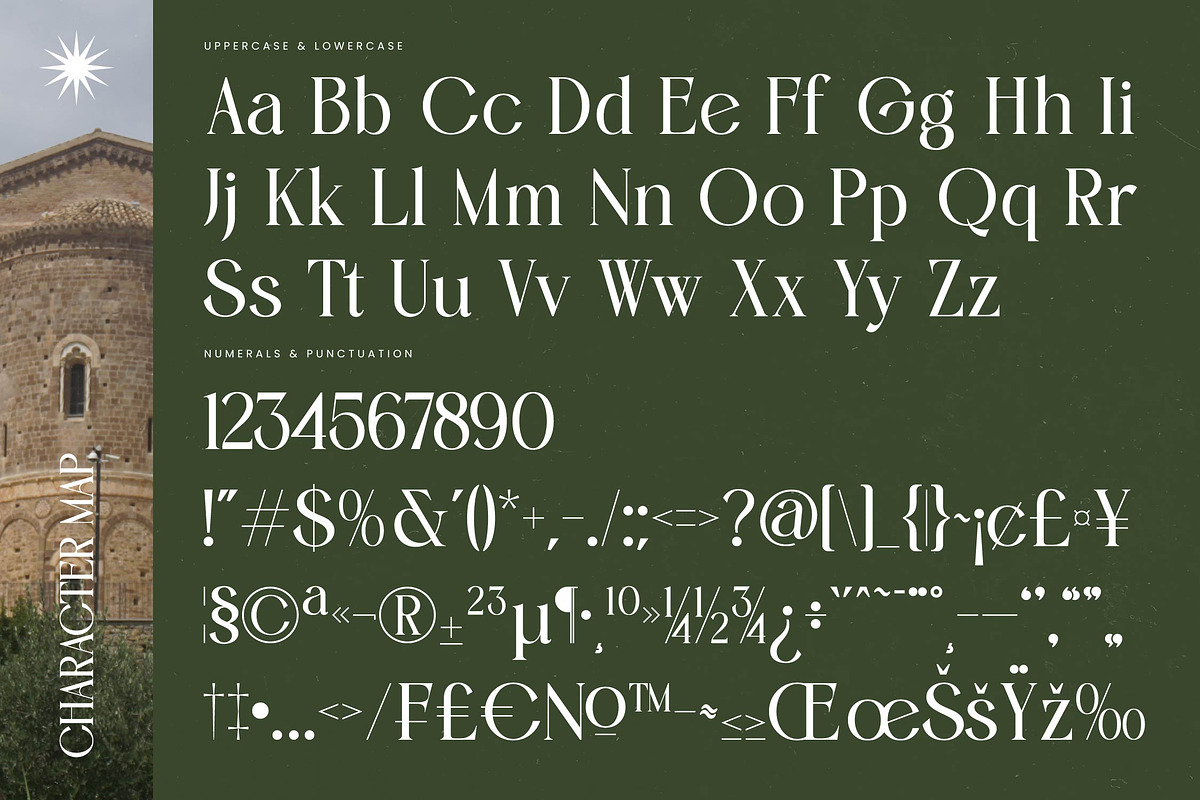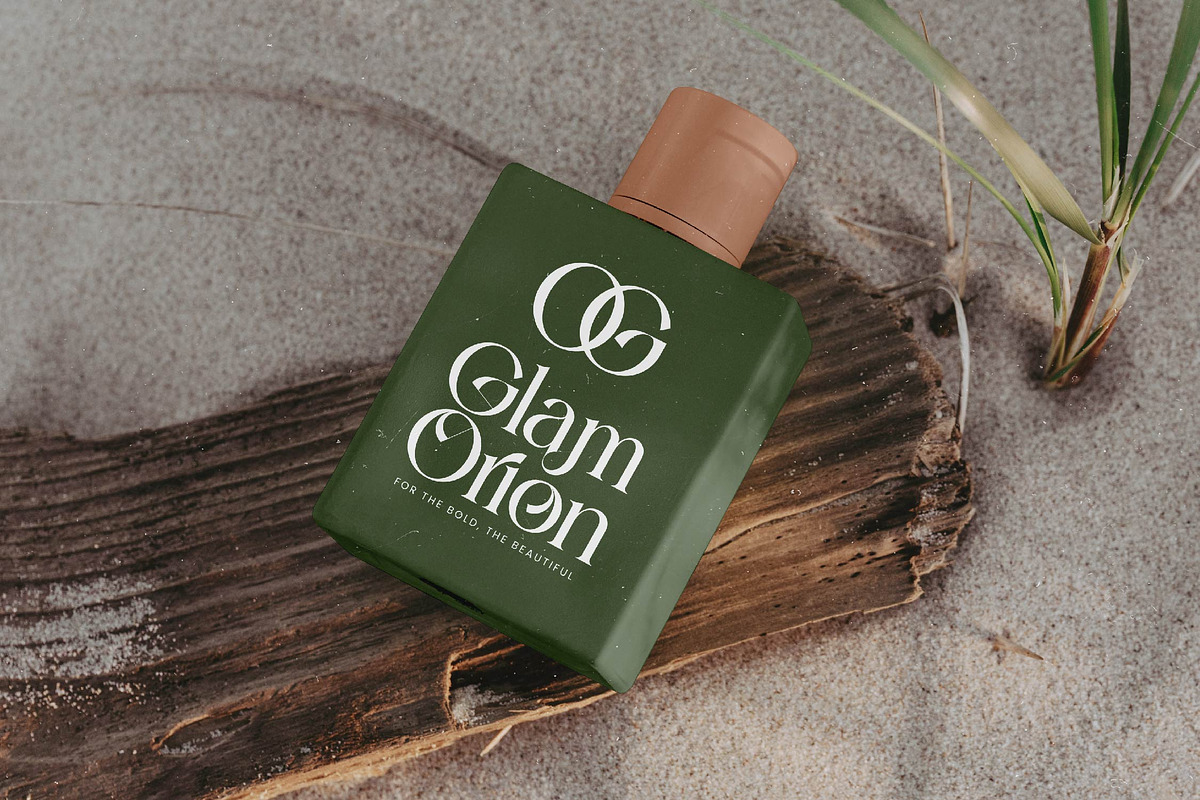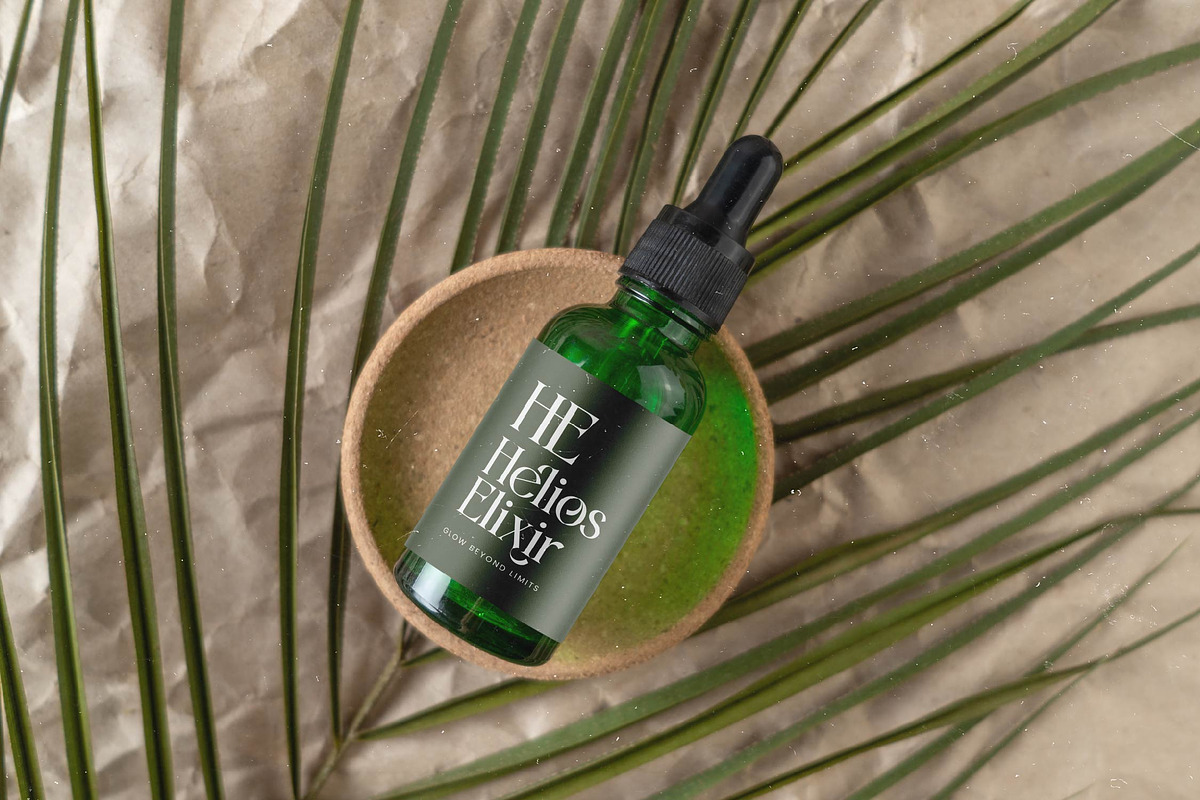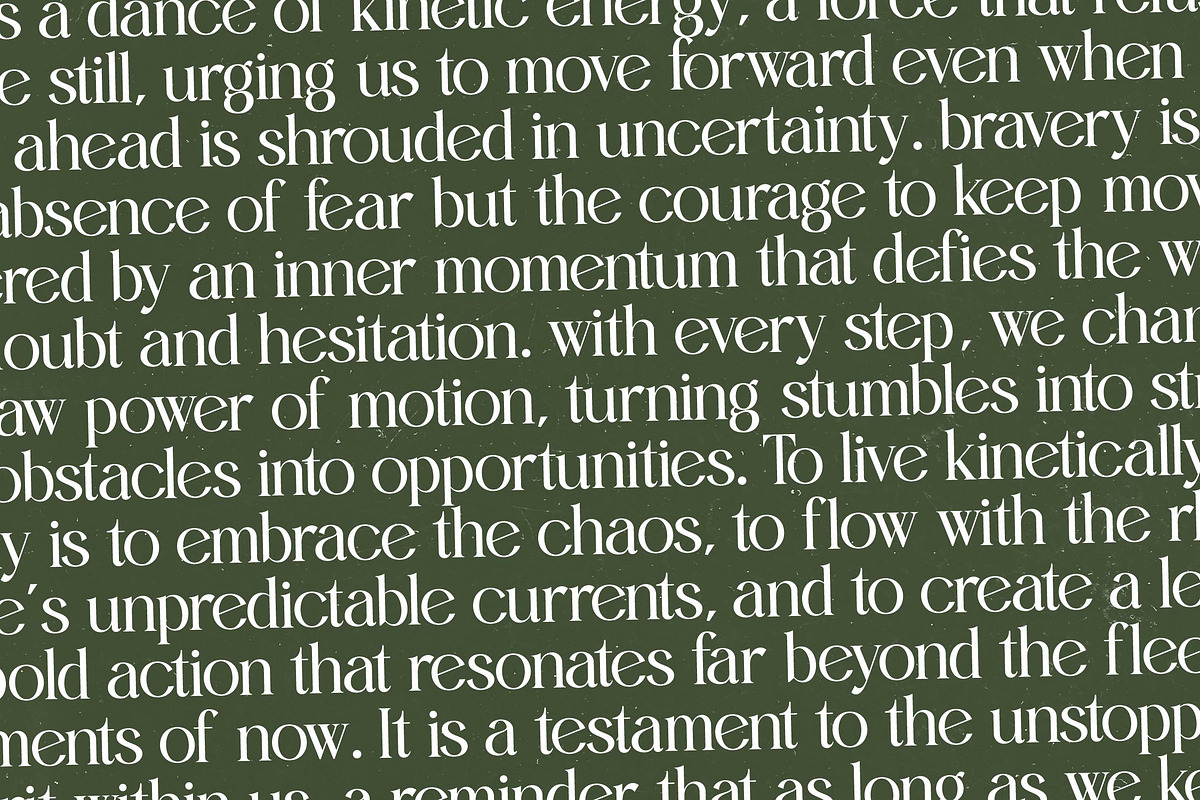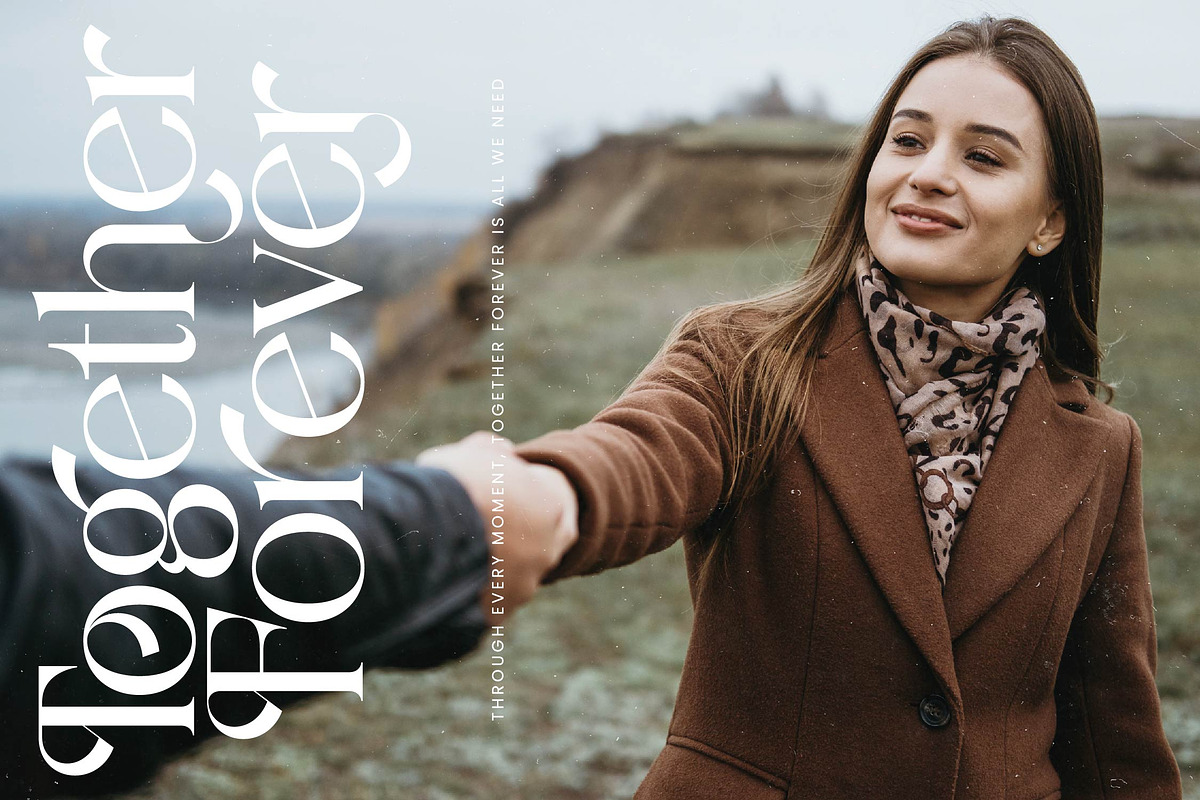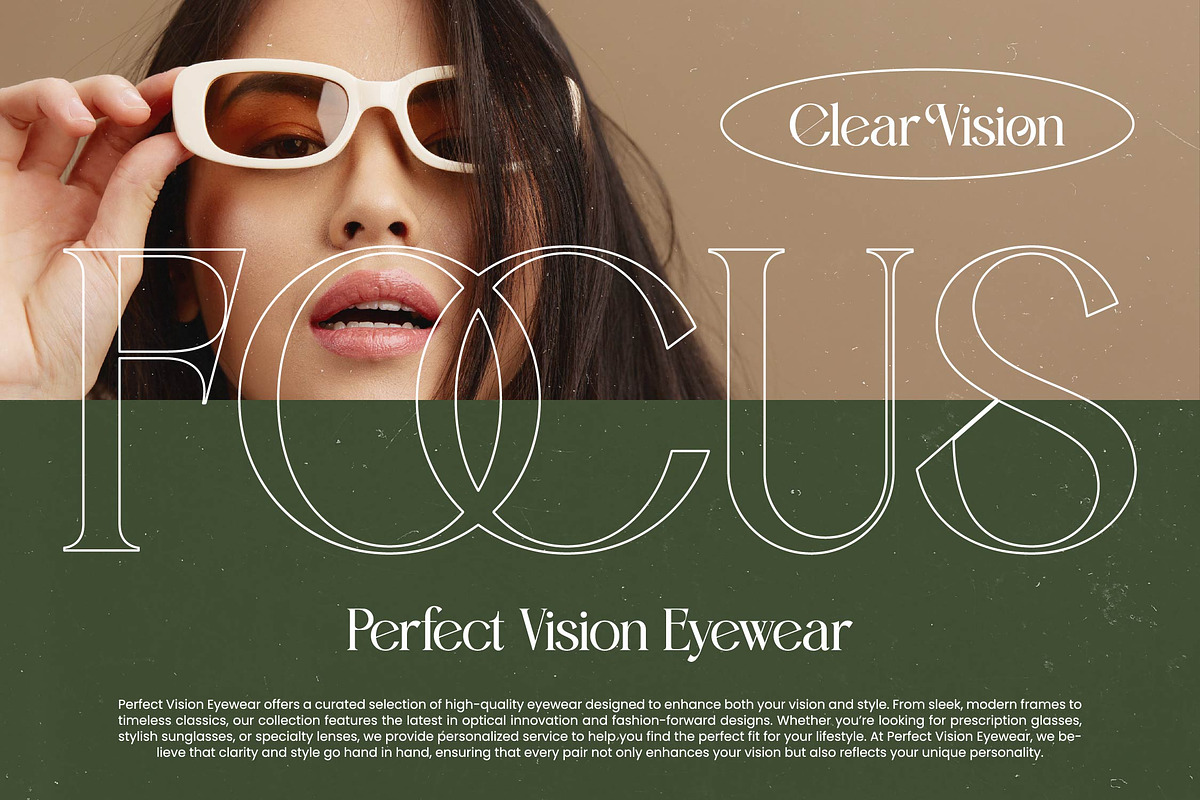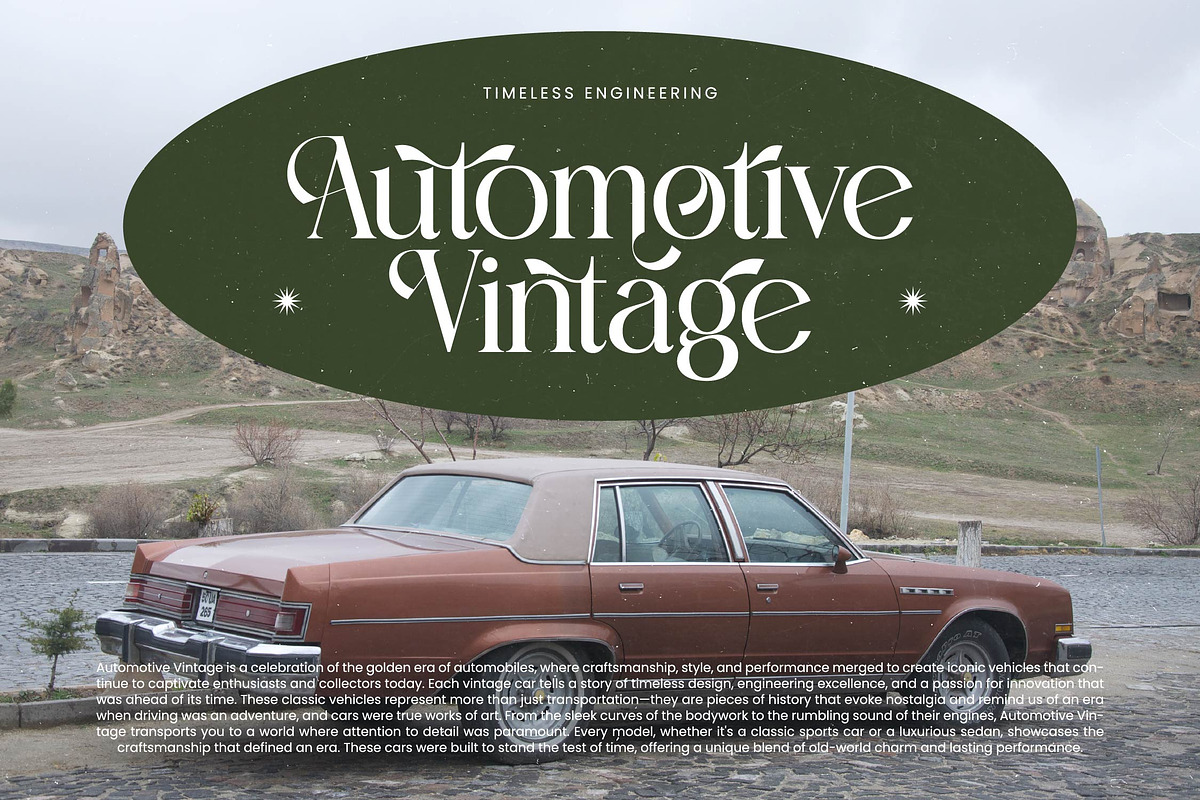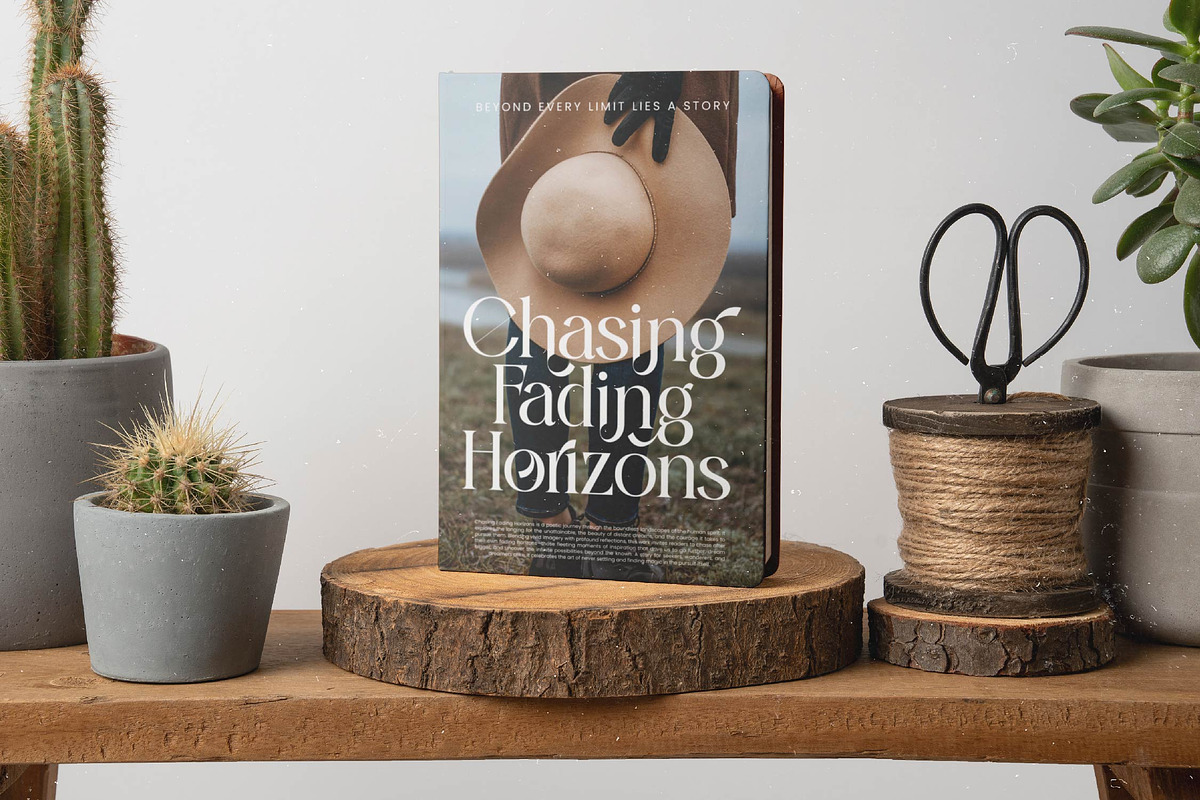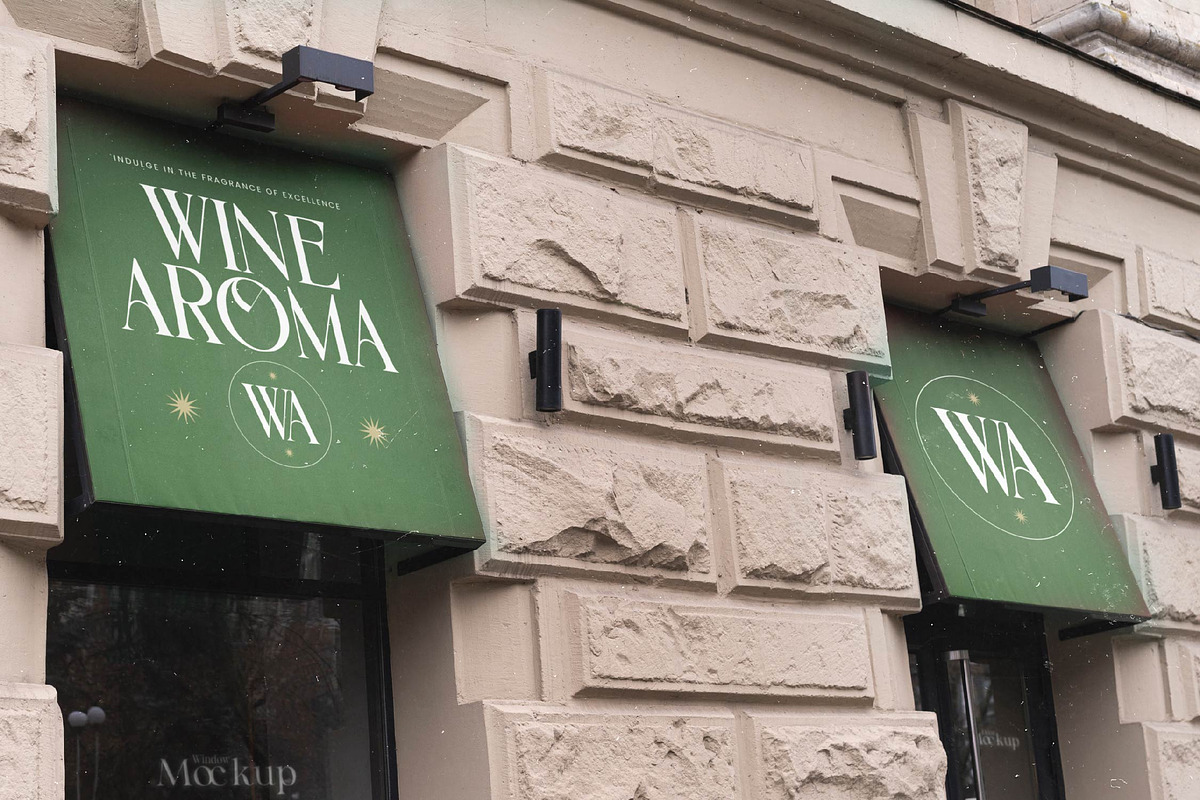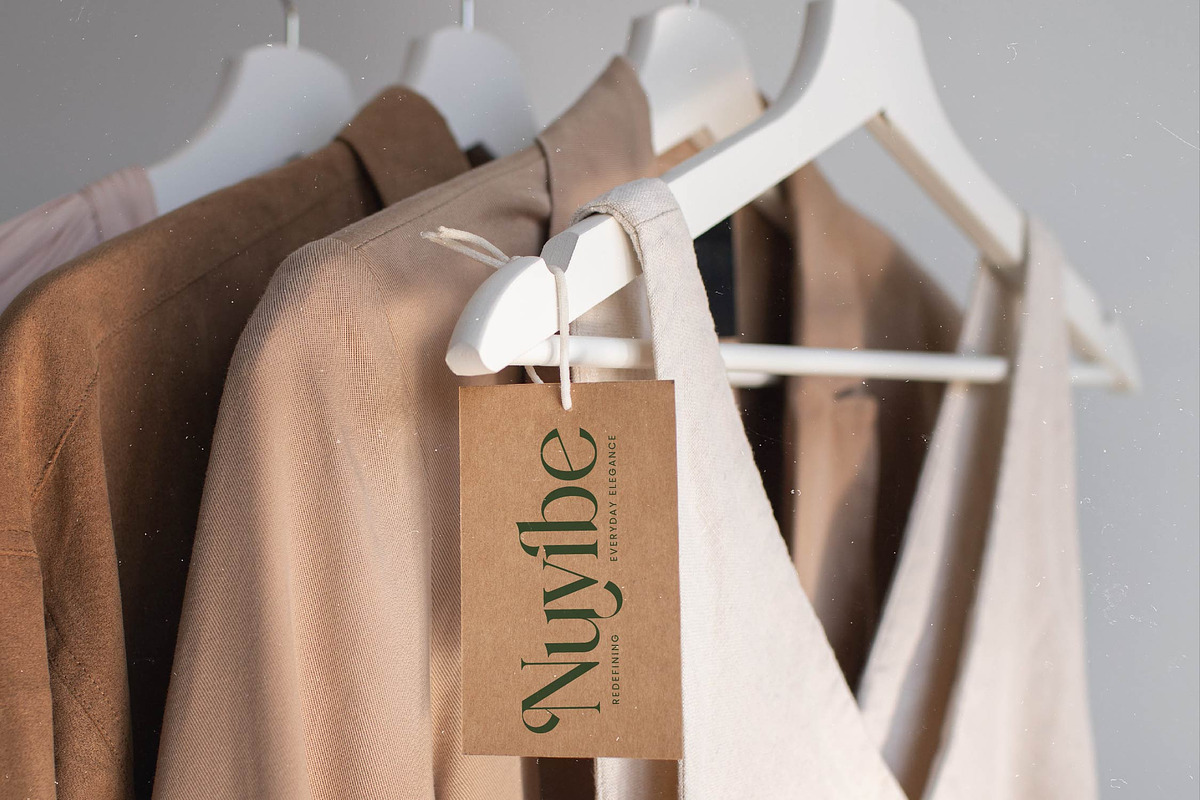
Kinetic Bravely - Bold Tall Serif
Experience the breathtaking elegance of Kinetic Bravely, a typeface designed to command attention while maintaining a poetic grace. It strikes the perfect balance between monumental strength and delicate artistic expression for your most ambitious creative projects.
Inspired by the soaring arches and timeless stonework of classical European architecture, this font captures a sense of historical permanence reimagined for the digital age. Its tall proportions and sharp details evoke the feeling of a sun-drenched courtyard where history meets contemporary luxury.
This modern serif display is defined by its striking silhouette and luxury typography appeal, offering a high-contrast serif look that feels both curated and cutting-edge. It is the ultimate editorial font for creators who need a branding impact that resonates with sophistication and authority.
Aligning perfectly with the current modern serif trend, this typeface brings a fresh perspective to editorial display fonts by merging classical structure with character-driven typography. It caters to the growing demand for unique, expressive letterforms that break away from standard minimalism.
Whether you are crafting a high-end logo design or developing a cohesive branding identity, this font excels in editorial layouts, luxury packaging, and bespoke wedding invitations. Its versatile nature makes it a staple for fashion magazines and premium lifestyle brands seeking a distinct visual voice.
This comprehensive package includes over 50 unique ligatures and more than 60 alternates to give your designs a custom, hand-lettered feel. Supporting a wide range of multilingual needs with international characters, it ensures your message reaches a global audience with flawless style.
- Ligature 52 Alternate 63